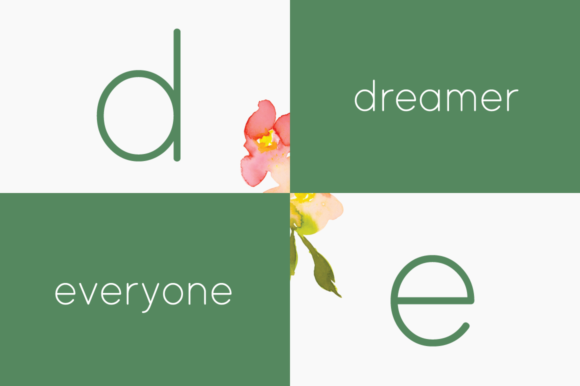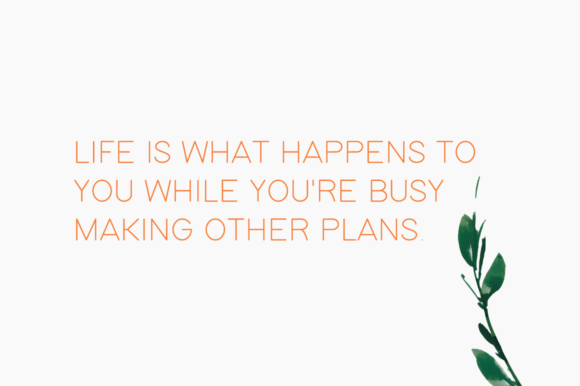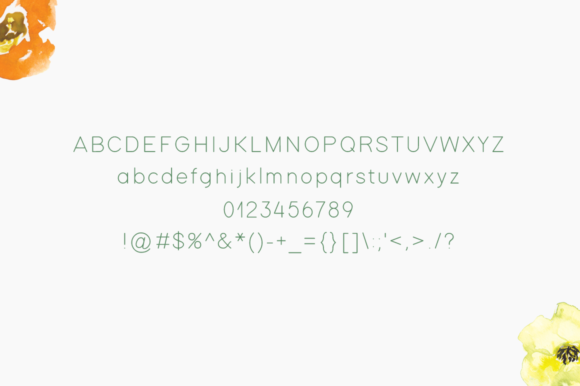
Introduction to Plight Light Font
Have you ever stumbled upon the perfect font at the most unexpected moment? Maybe it was while browsing through a design blog, or perhaps it was during a late-night creative session. For me, that moment came when I discovered the enchanting Plight Light Font. Its elegant and charming design immediately captured my attention, and I knew I had to share it with fellow designers.
As a valuable design resource, Plight Light Font is perfect for elevating your creative projects to the next level. Whether you’re working on a branding project, designing wedding invitations, or creating a logo, this high-quality font is sure to make your work stand out. With its transparent background and versatile style, Plight Light Font is a free download that’s perfect for designers looking to add a touch of sophistication to their designs.
Key Features of Plight Light Font
- High-quality, professional design suitable for various creative projects
- Transparent background, ideal for graphic designers and digital artists
- Unique, modern design with a clean and elegant aesthetic, perfect for logos, headings, and titles
- Perfect for designers seeking a reliable, high-quality design resource for their next creative project
Honest Review: Plight Light Font
I recently had the chance to dive into the Plight Light Font, a versatile design resource that caught my eye. The first thing I noticed was the high quality of the font, with crisp lines and a clean aesthetic that lends itself well to a wide range of creative projects.
One of the standout features of the Plight Light Font is its transparent background, which makes it easy to layer and customize in a variety of design scenarios. This level of flexibility is a major plus, especially for designers who need to balance multiple elements in a single composition.
Here are a few things that work well about the Plight Light Font:
- ✨ High-quality design with crisp lines and a clean aesthetic
- ✨ Transparent background for easy layering and customization
- ⚠️ Limited font styles and weights, which may limit its versatility in certain projects
- ⚠️ Some users may find the font to be a bit too minimalist for certain design applications
Overall, I’m impressed with the Plight Light Font, and I think it’s a valuable resource for designers who need a clean, high-quality font for their creative projects. While it may not be perfect, it’s a solid choice for designers who value simplicity and flexibility.
Tips for Getting the Most Out of Plight Light Font
For the best results, use the Plight Light Font with a transparent background to create a seamless and modern design. Experiment with different font sizes and styles to add visual interest to your creative project.
The Plight Light Font is ideal for use in a variety of creative projects, including graphic design, branding, and digital art. Its high-quality design and transparent background make it a versatile design resource for any project.
Alternatives to Plight Light Font
A modern and stylish font, Great Vibes is perfect for designers seeking a design resource with a touch of sophistication. It features a transparent background and is suitable for posters, social media graphics, and other creative projects. Compared to Plight Light Font, Great Vibes has a more vibrant and energetic feel.
Can I use the Plight Light Font with a transparent background?
Yes, the Plight Light Font is designed to work well with transparent backgrounds. The font’s design is optimized to provide a clear and legible appearance, even when used with a transparent background. This makes it perfect for use in digital art,